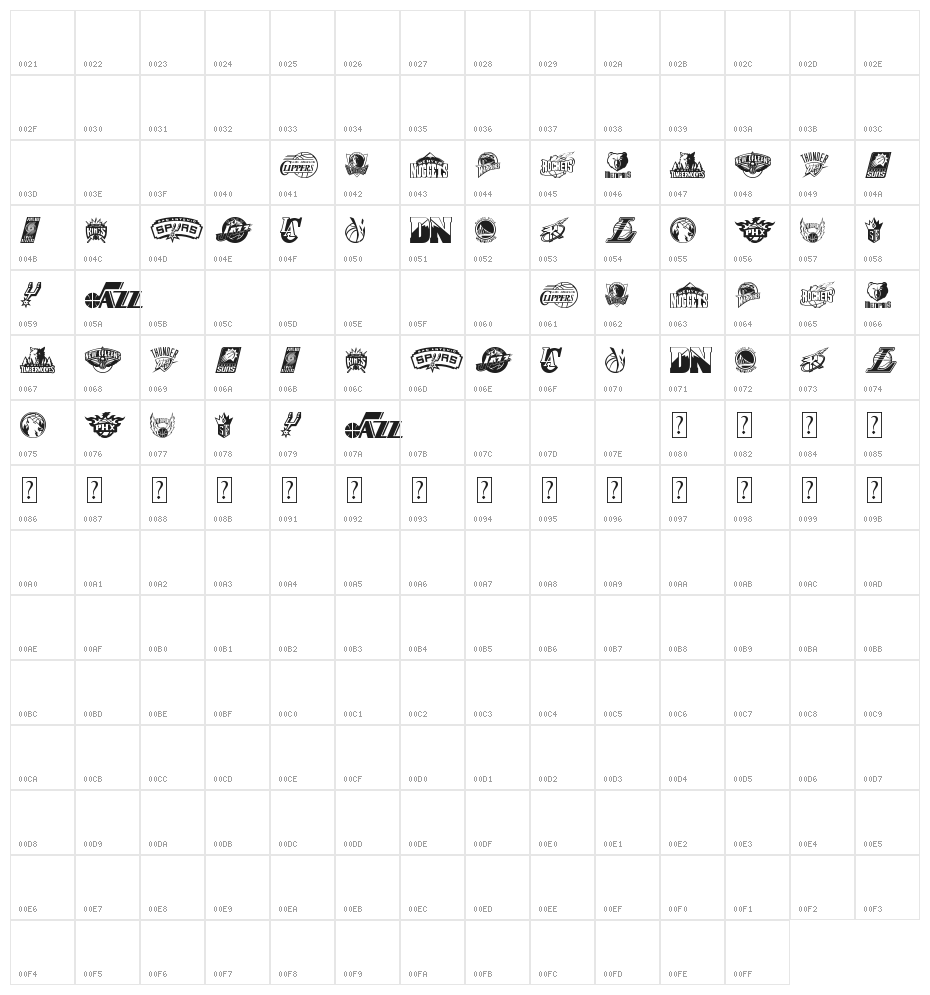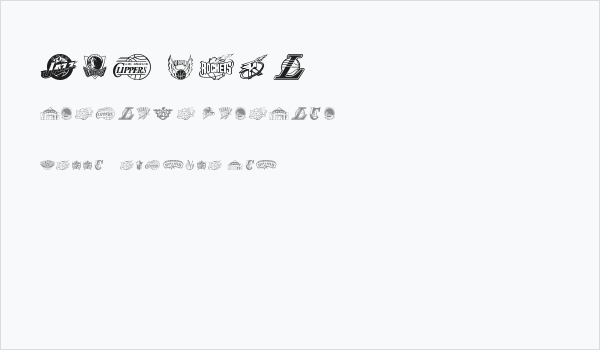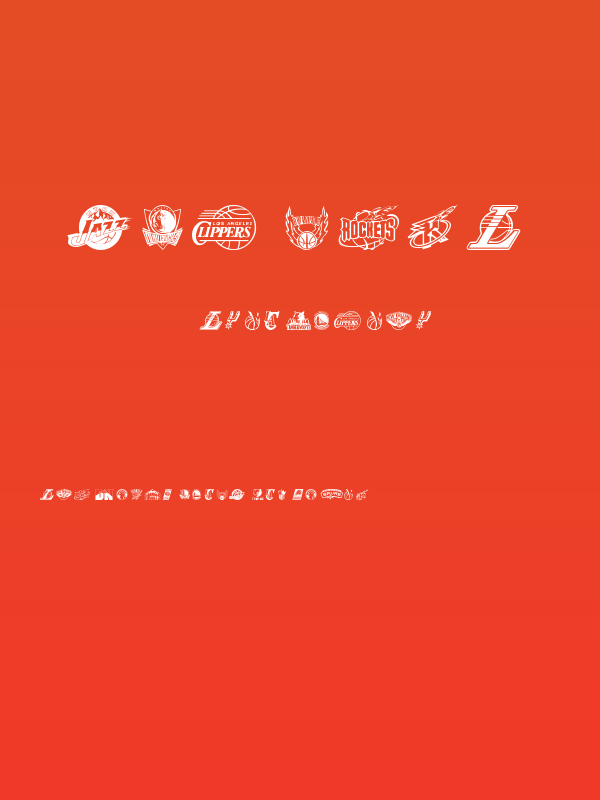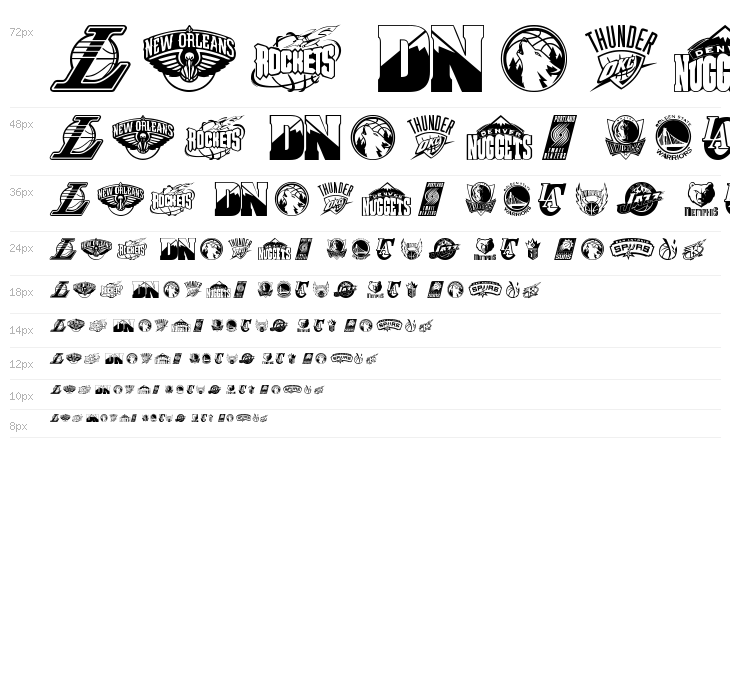
NBA WEST Font
NBA WEST Description
A decorative and bold display font featuring stylized, sports-themed letterforms with strong geometric shapes and high contrast, often incorporating iconography and dynamic elements reminiscent of athletic branding.
| Overall Style | Decorative, Athletic, Modern |
| Use Case | Logos, Headlines, Posters, Merchandise |
| Proposed Projects | Sports branding, event posters, team merchandise, athletic apparel, logo design. |